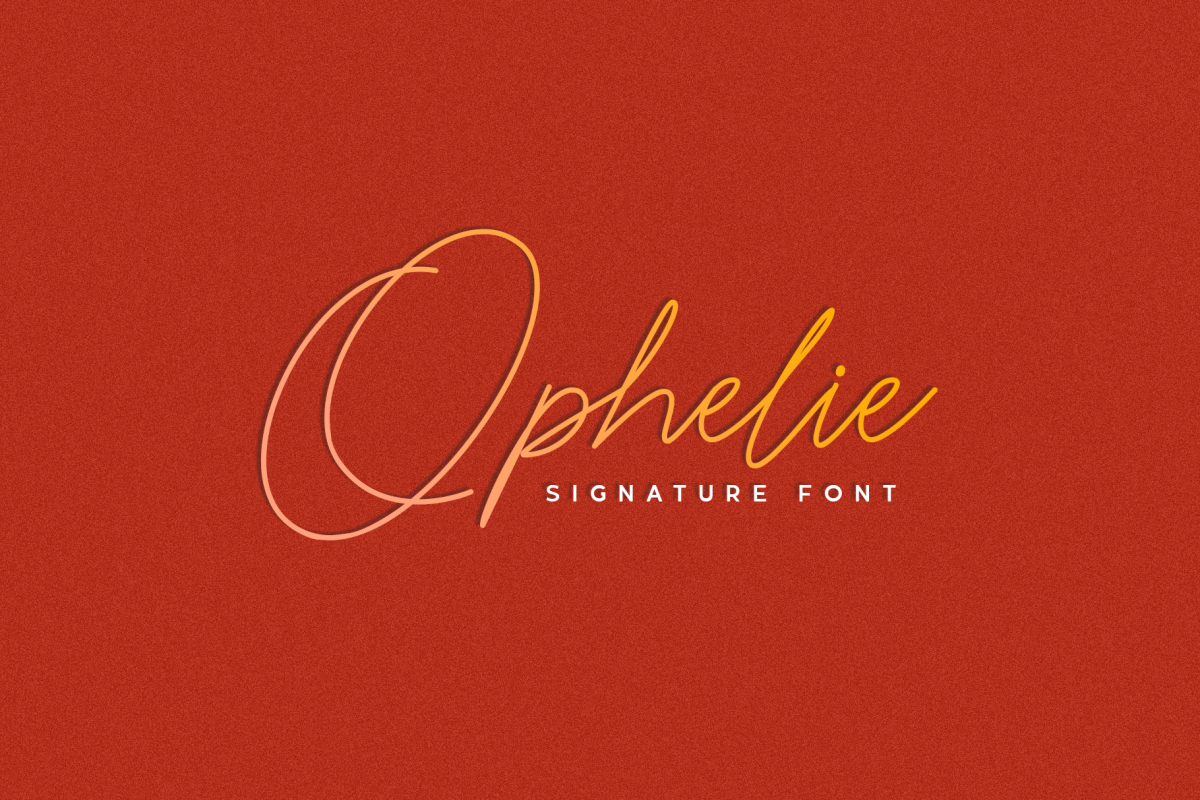
Ophelie - Script Signature
Ophelie Sans
Ophelie
Ophelie - Signature Script is a modern signature font, It is perfect for your creative design like social media, branding, product packaging, wedding invitations, signage, labels, signature, book covers/magazine, posters, quotes and much more. Bonus Bold Sans for perfect pairing font.